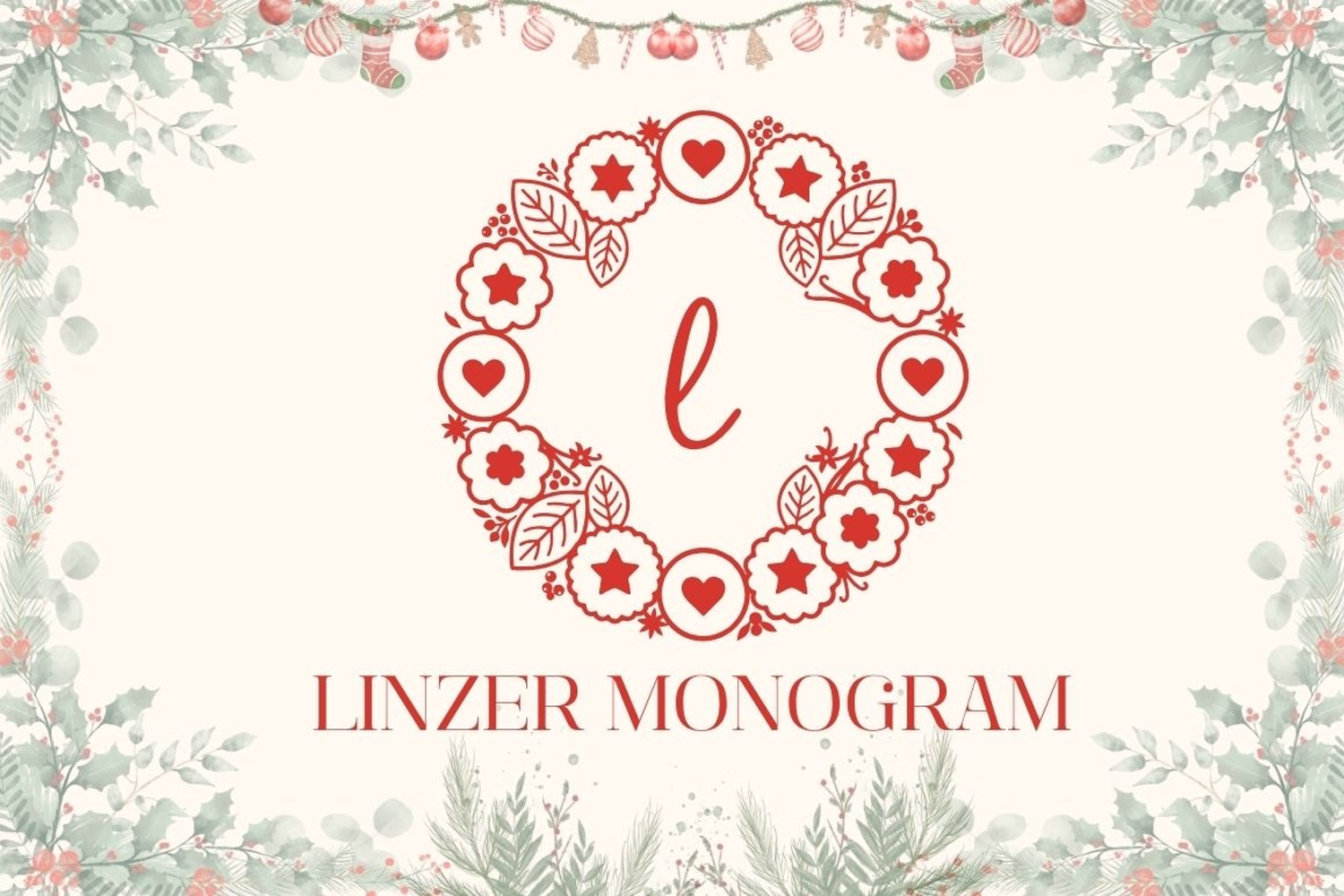
Linzer Monogram Font
Add a sweet, festive touch to your designs with the Linzer Monogram Font.
Inspired by the warmth of holiday baking and traditional winter treats, the Linzer Monogram Font is a unique, festive typeface. Each character features a beautiful, elegant script initial nestled perfectly inside a decorative wreath made of stylized Linzer cookies, hearts, stars, and winter foliage.
Whether you are branding a winter-themed bakery, designing custom packaging for your homemade holiday cookies, or creating lovely seasonal labels, this monogram font brings a cozy, handcrafted feel to your projects. It works beautifully as a standalone logo mark for pastry shops or as a personalized touch on rustic paper bags.
Key Features:
- A–Z uppercase, a–z lowercase, 0–9 numerals
- Frame-only shortcut: press “.” or “,”
- Smooth curves for clean outlining and precise cutting